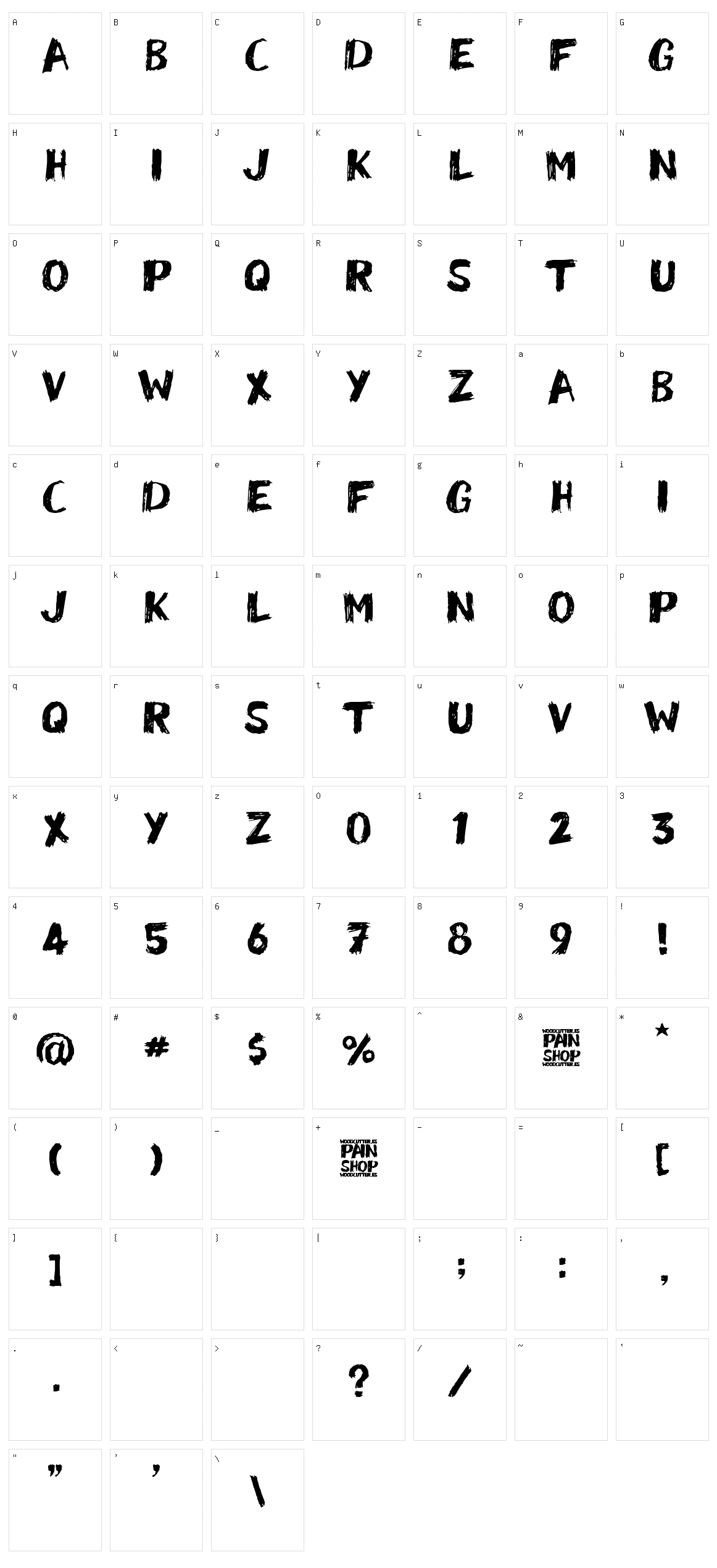
The free font Pain Shop is carefully designed by Woodcutter, showcasing a thoughtful balance of creativity and usability and falls under the Horror font style. When you download the ZIP file, it contains only 82.21 KB of font files, making it lightweight and quick to download. Please review the license details below to understand permitted usage and distribution rights. If license information is not available, we recommend using this font for personal projects only or contacting the author directly for commercial usage permissions.